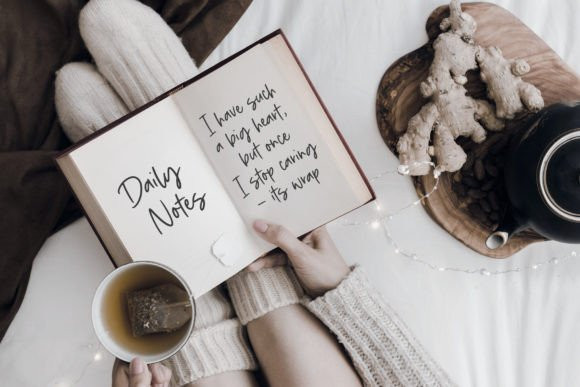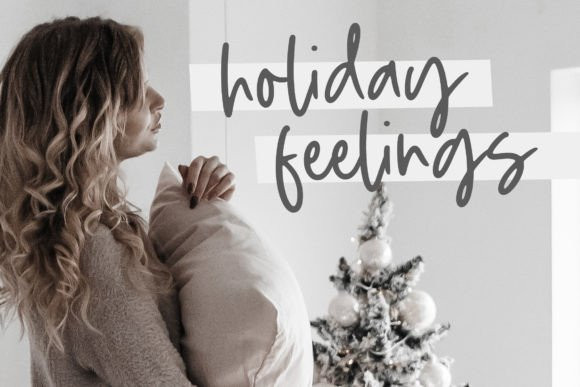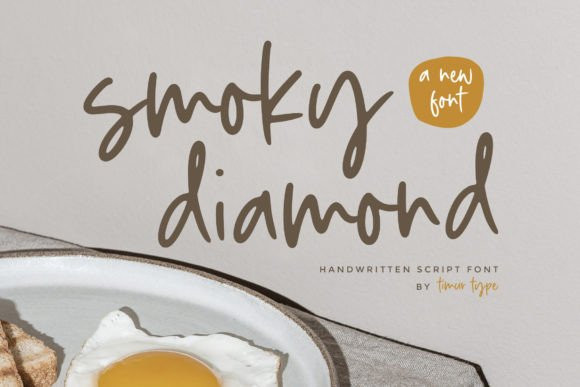
Smoky Diamond Font
Smoky Diamond Font Designed with meticulous attention to detail, this font captures the charm and authenticity of handwritten script while infusing it with a hint of sharpness and edge. The sharp tip adds a bold and dynamic element, lending a sense of energy and excitement to your typography.